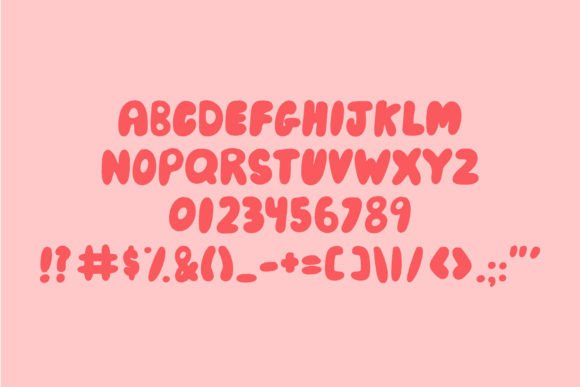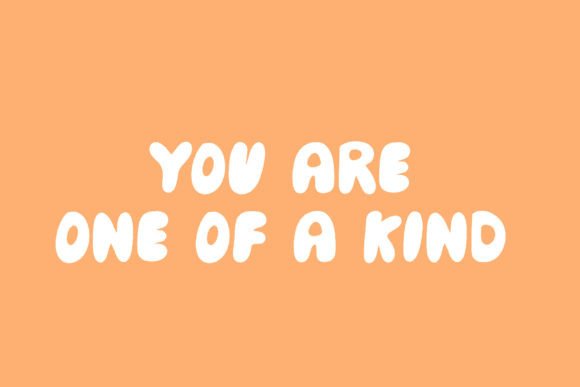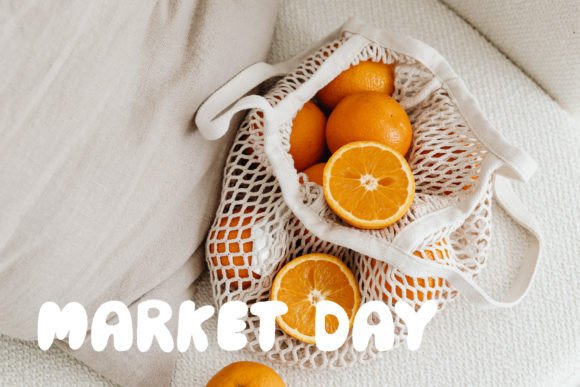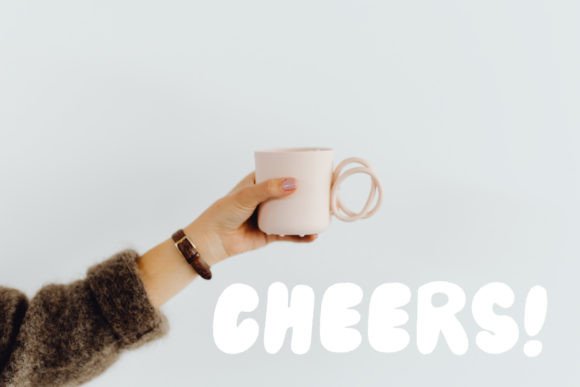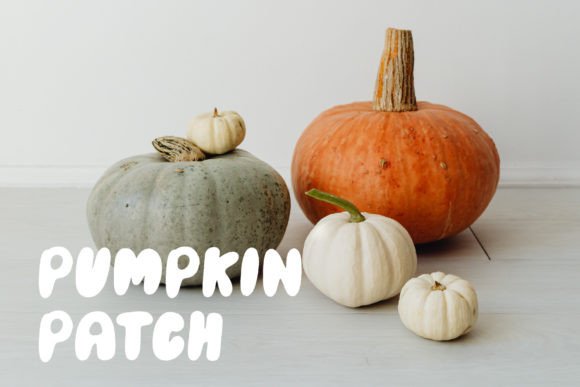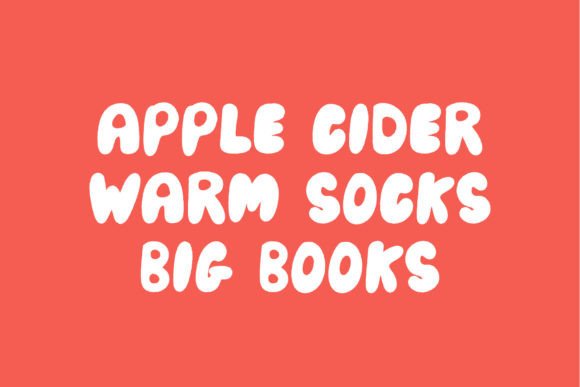
Introduction to Plump Font
Plump is a playful, round handwritten font that is perfect for adding a personal touch to your next project.
This font works great for creating logos, quotes to share on Instagram, social media posts, and more .
Key Features of Plump Font
Why Choose Plump Font?
Plump Font offers exceptional quality and versatility, making it a valuable addition to your design toolkit. Whether you’re creating for personal projects or commercial use, Plump Font delivers professional results.